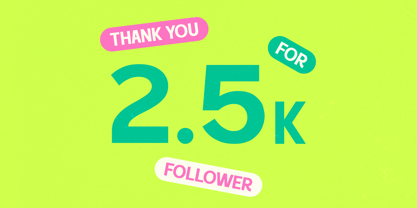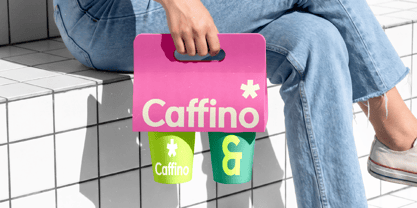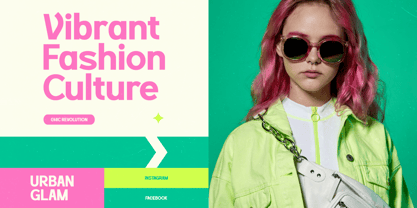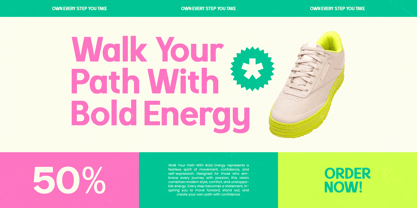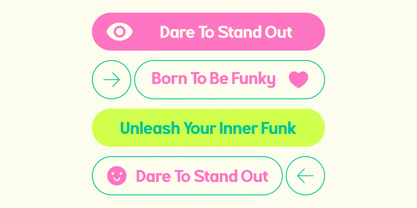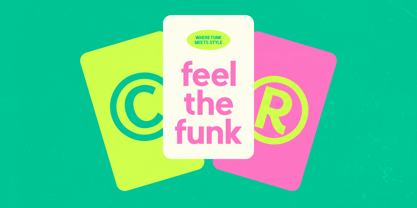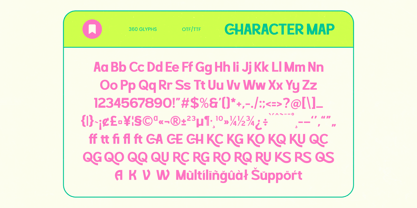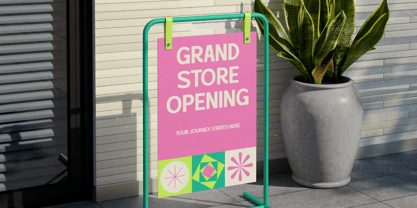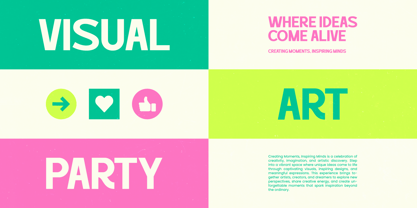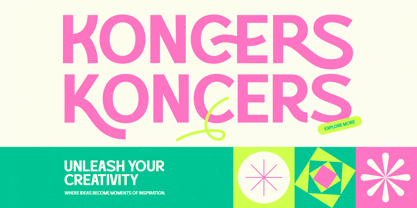
Koncers
A família de fontes Koncers foi desenhada por Heru Utama Putra e publicada pela Timelesstype Studio. Koncers contém 2 estilos e opções de pacote familiar. Saiba mais sobre esta família
Elevate projects with Koncers, a vibrant sans serif built for impact. It adds personality to every creative headline.
Inspired by urban art and modern galleries, it mixes geometry with creative flow. It captures a contemporary, energetic atmosphere.
Define style with this modern serif display for luxury typography. This high-contrast serif and editorial font guarantee high branding impact.
Follow the modern serif trend using these editorial display fonts. It excels in character-driven typography for trendy, bold designs.
Perfect for logo design, branding, and editorial projects. Use for packaging, a wedding, or fashion industry visuals.
Technical highlights include ligatures, alternates, swashes, and multilingual support. Includes international characters for broad accessibility.